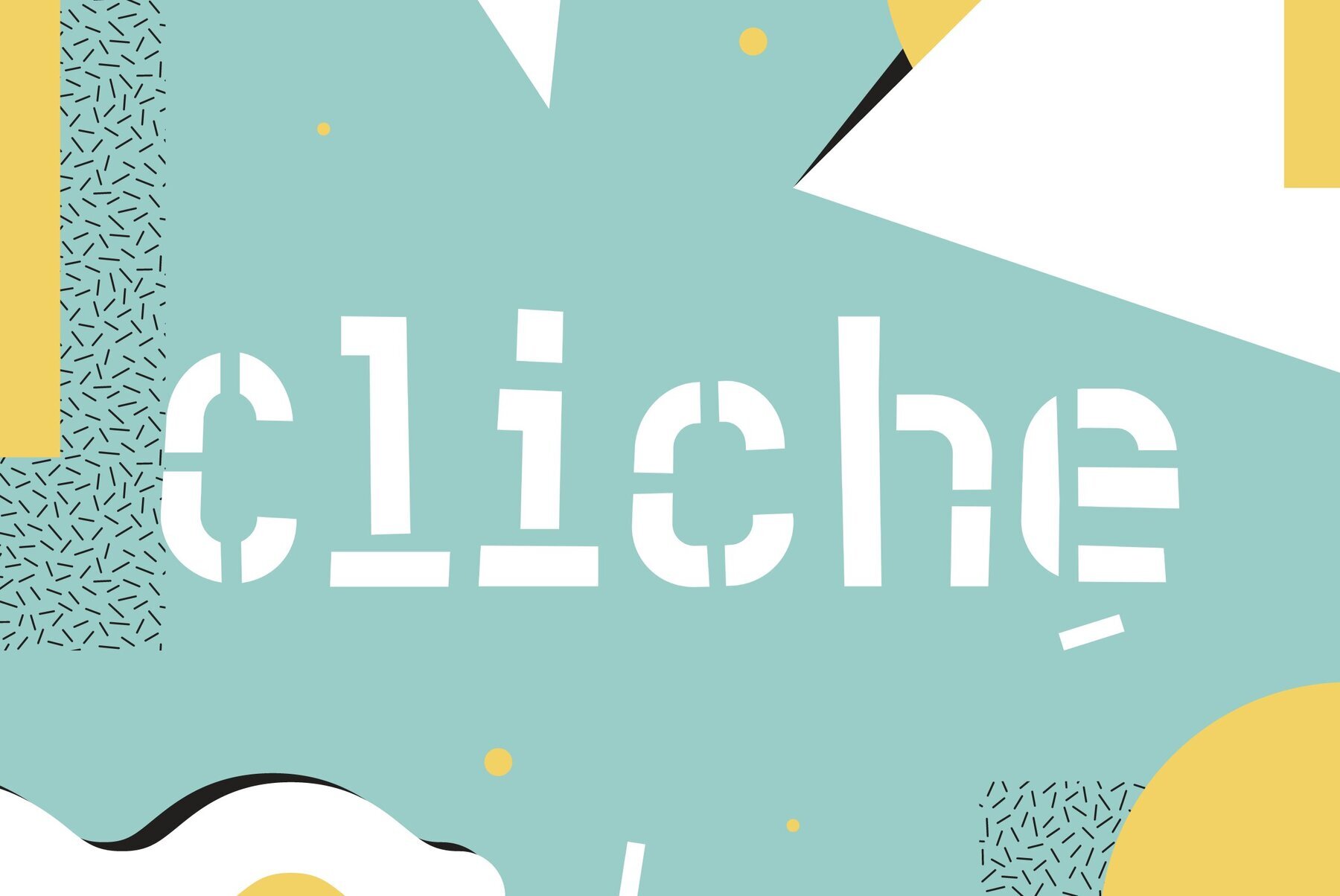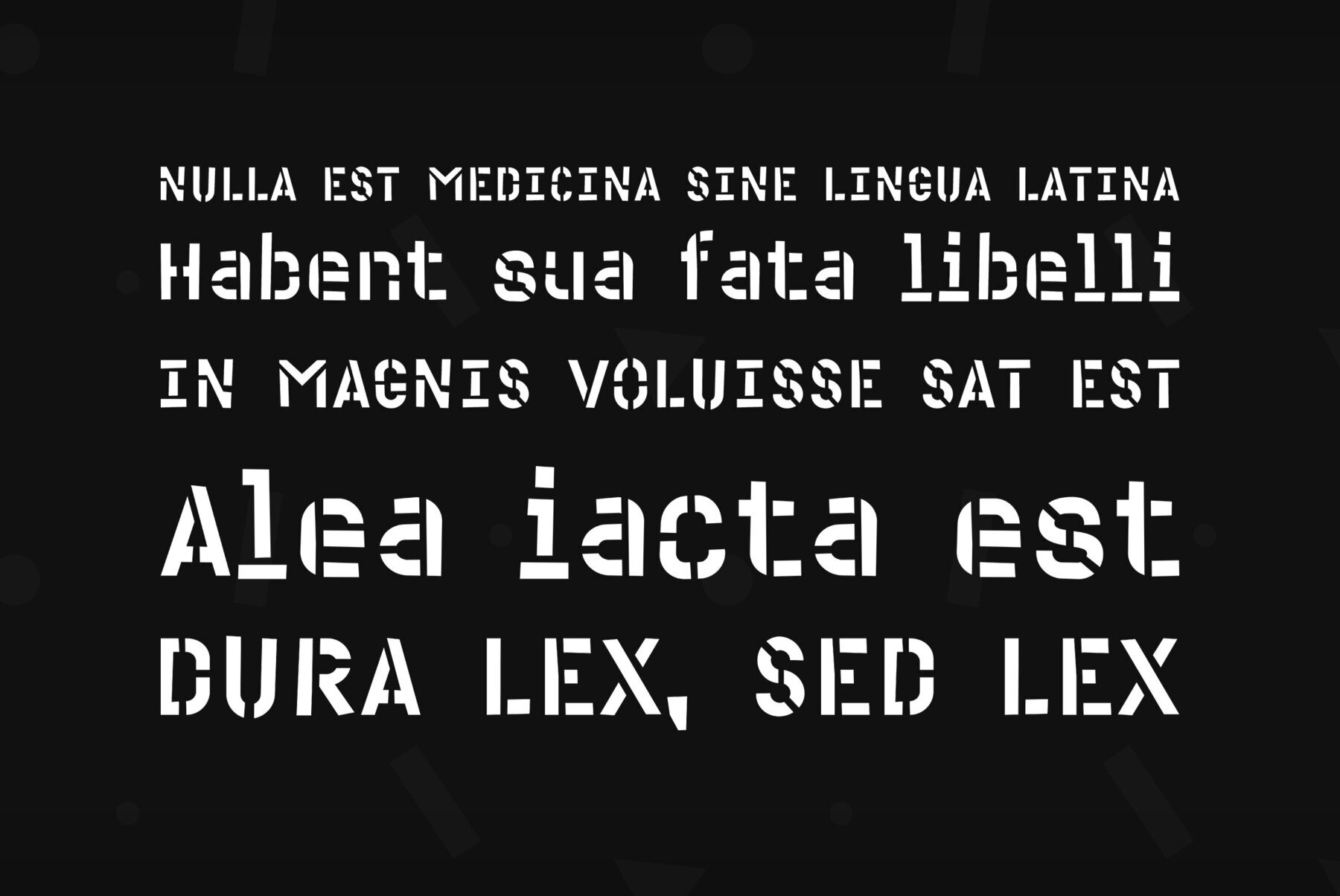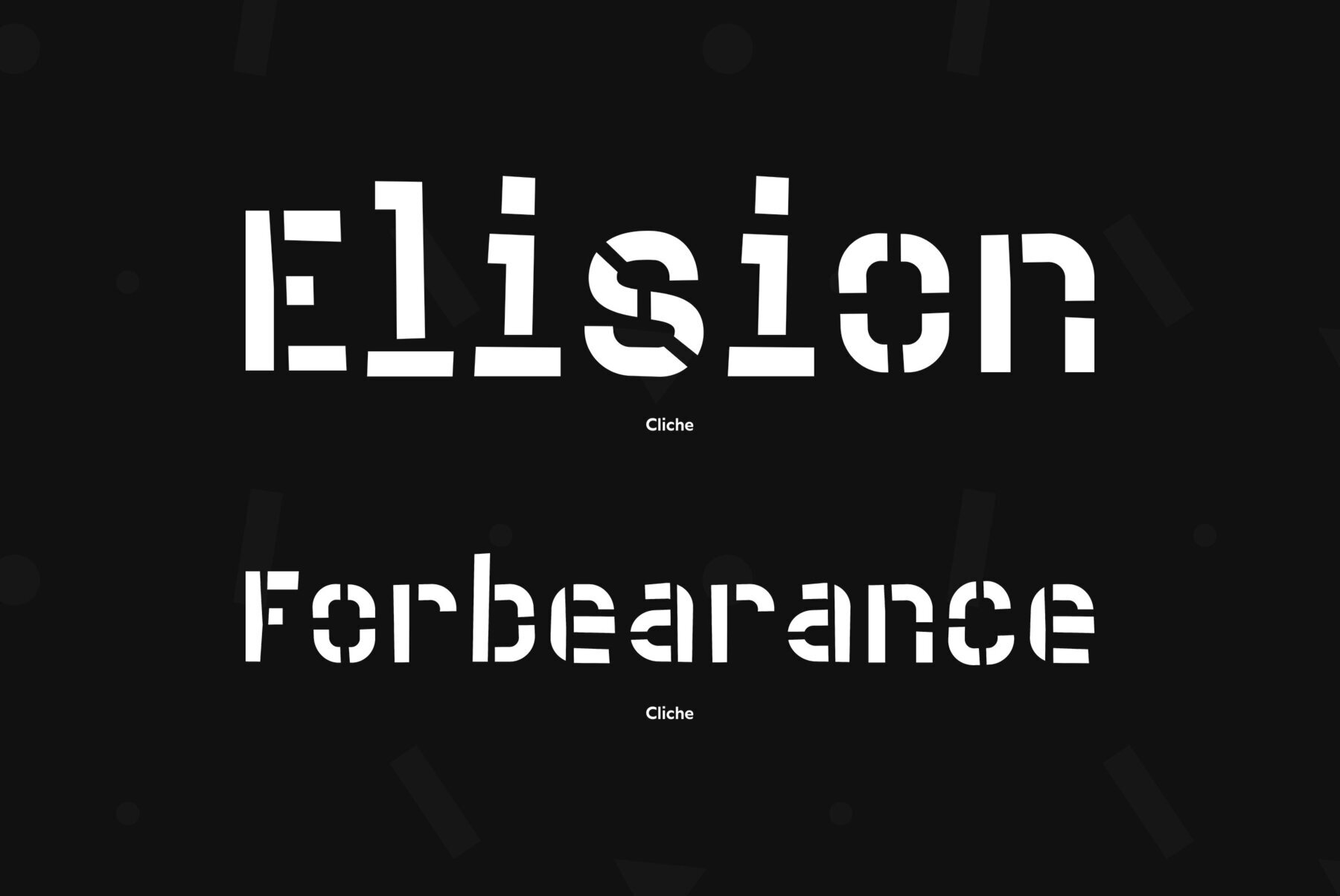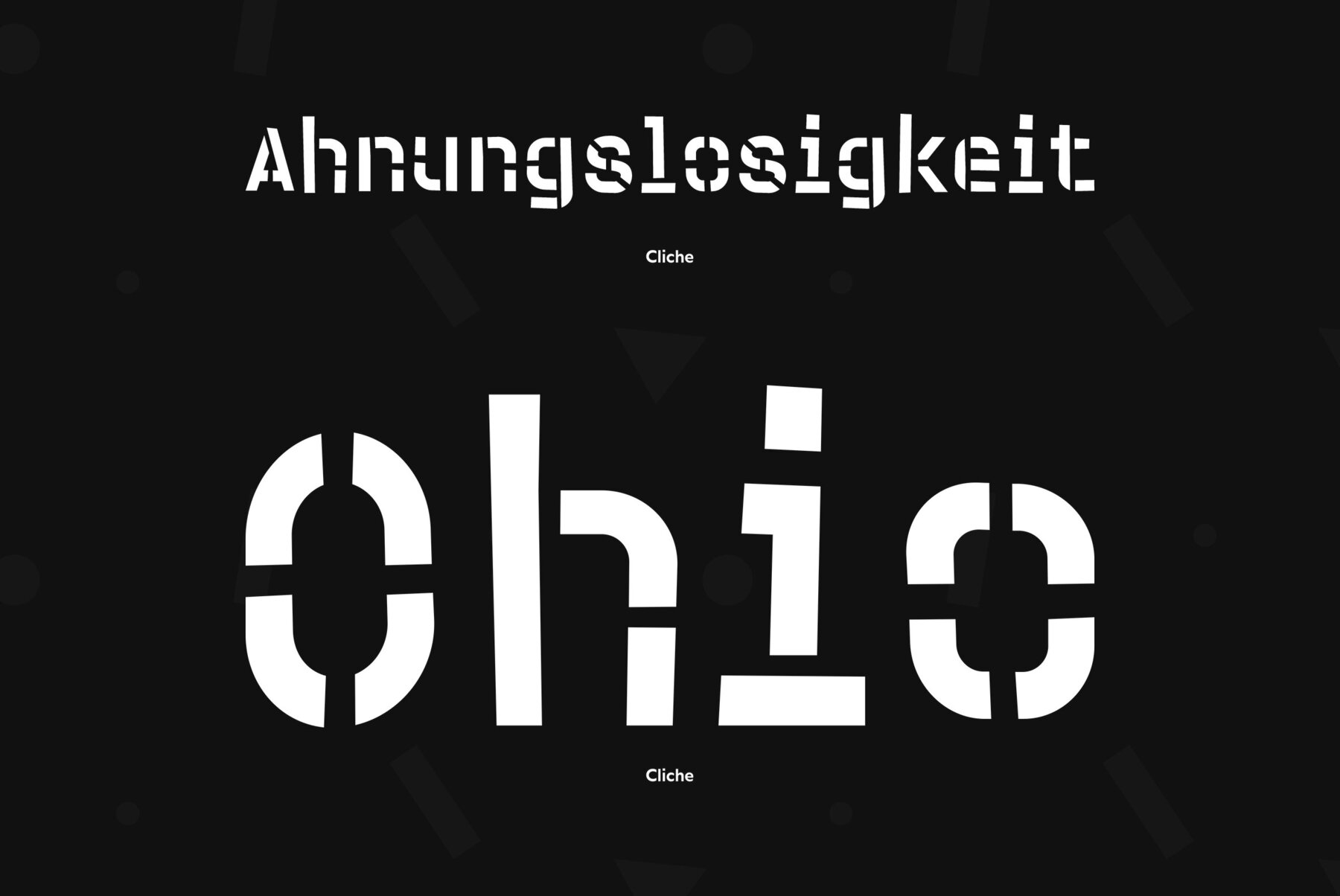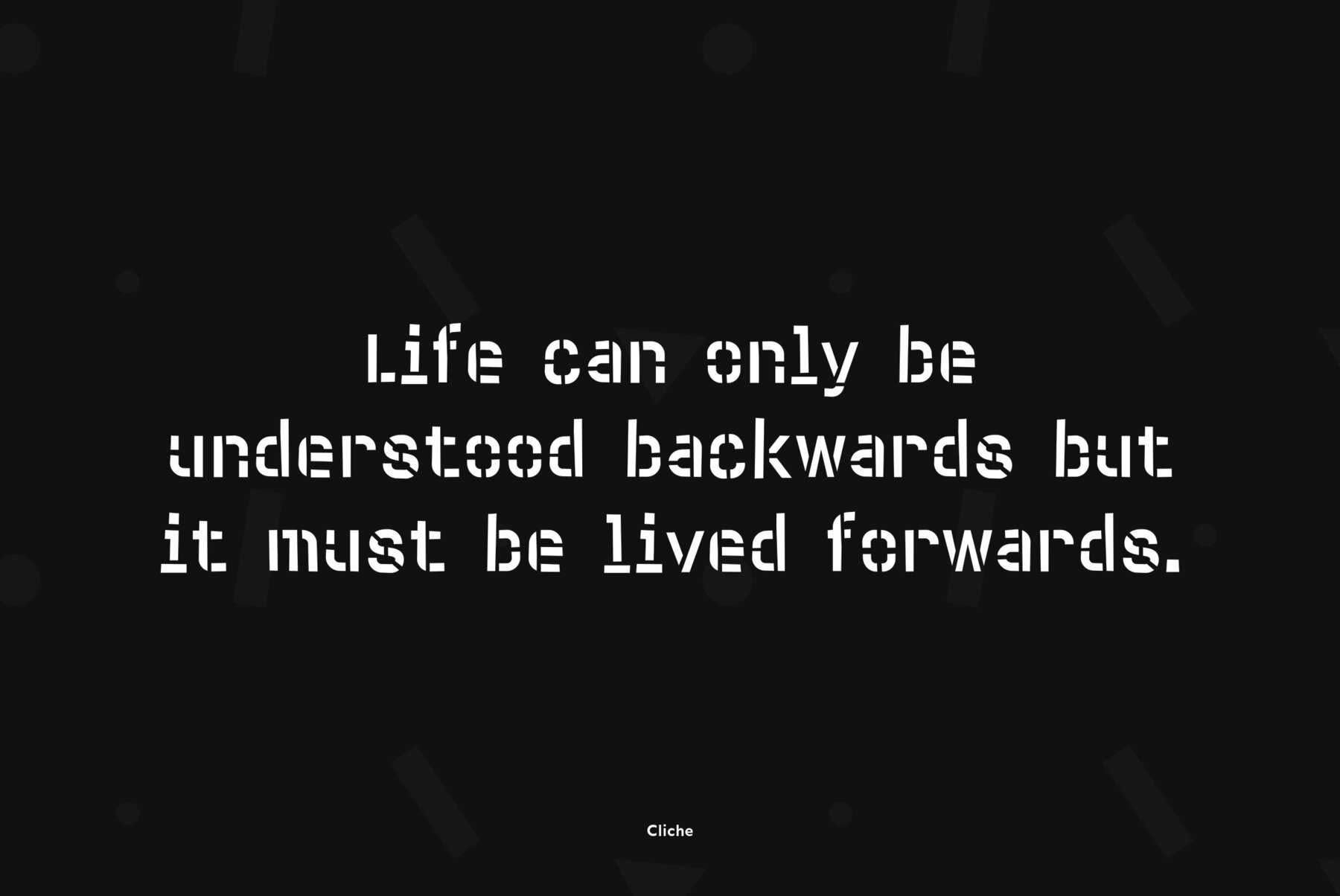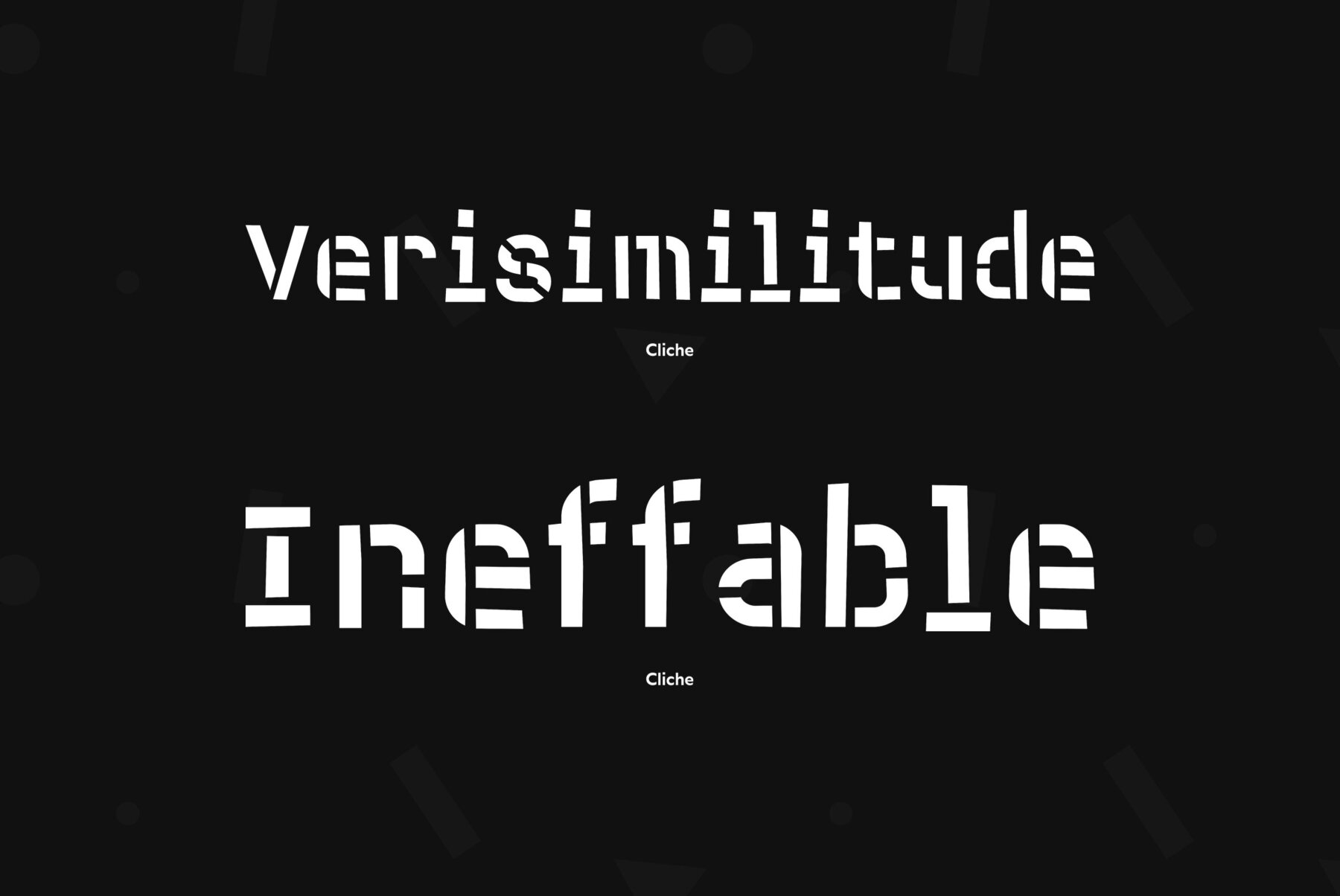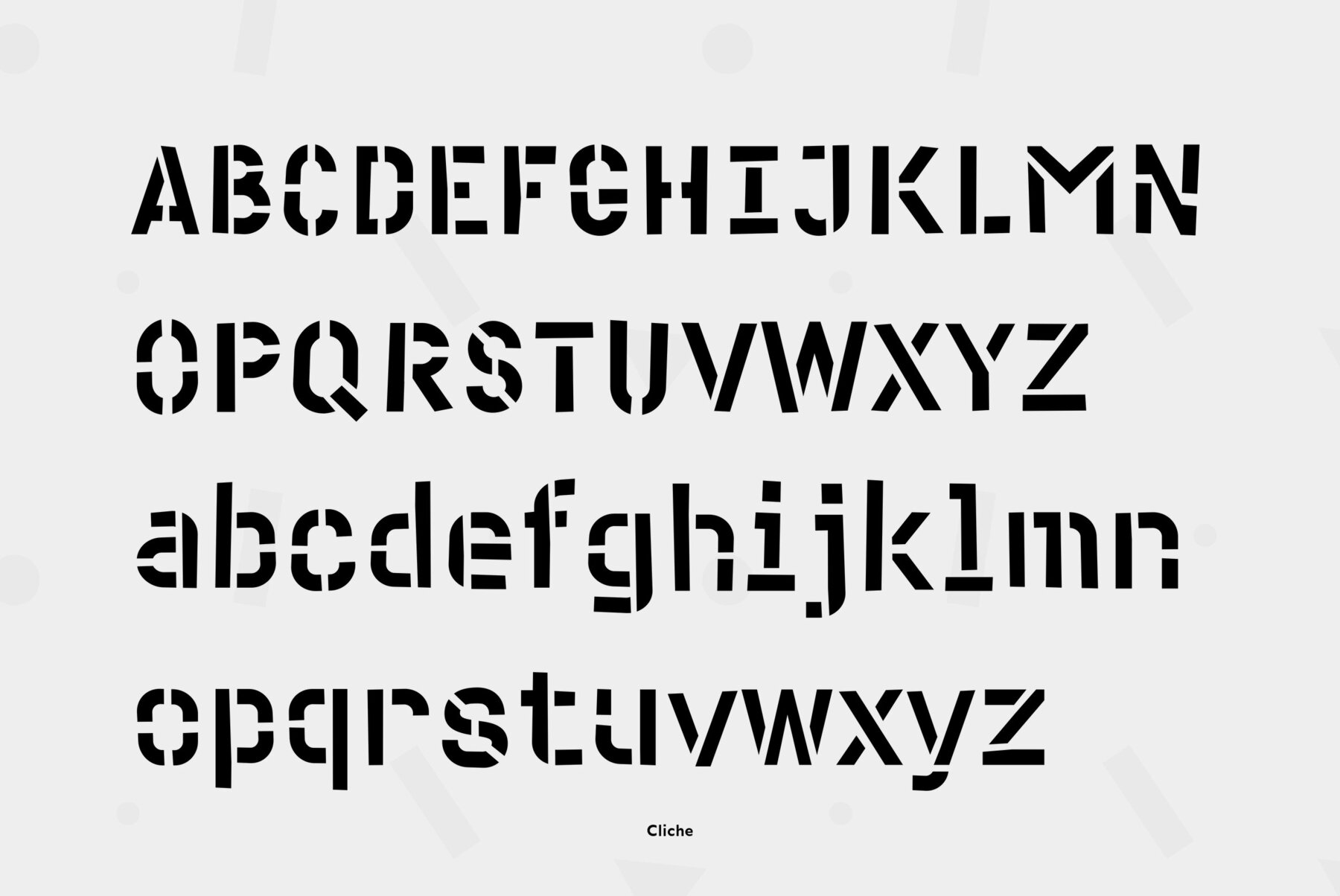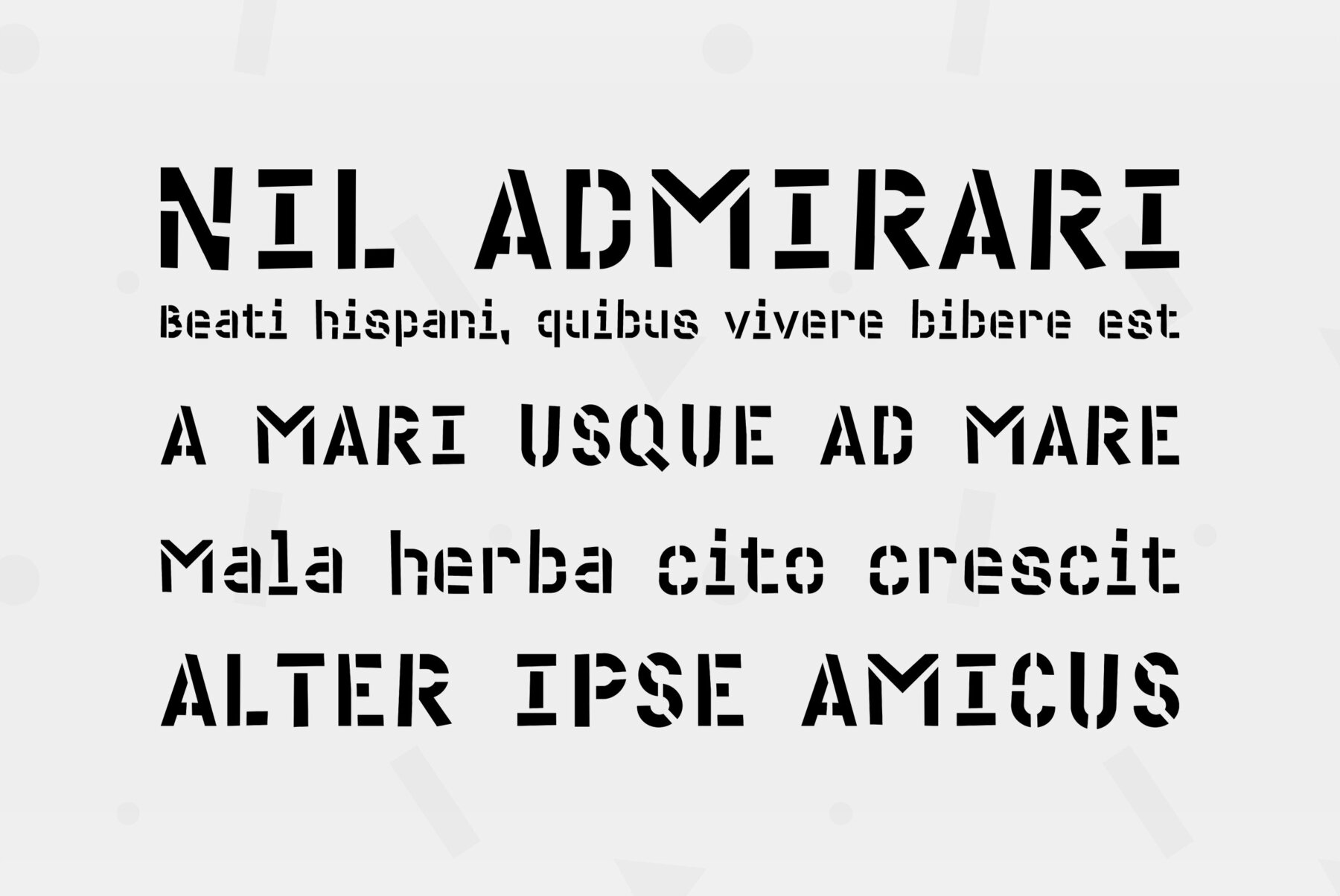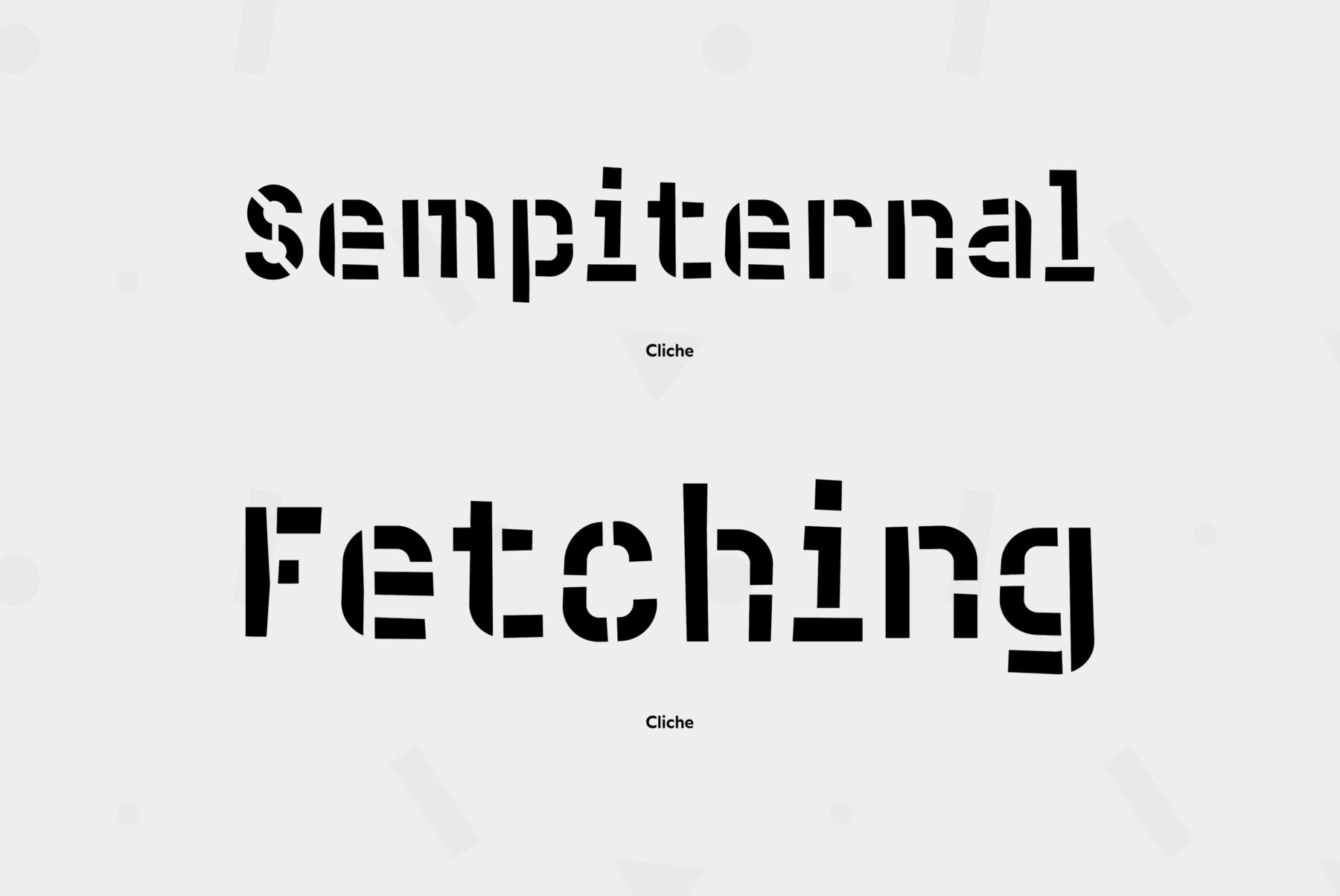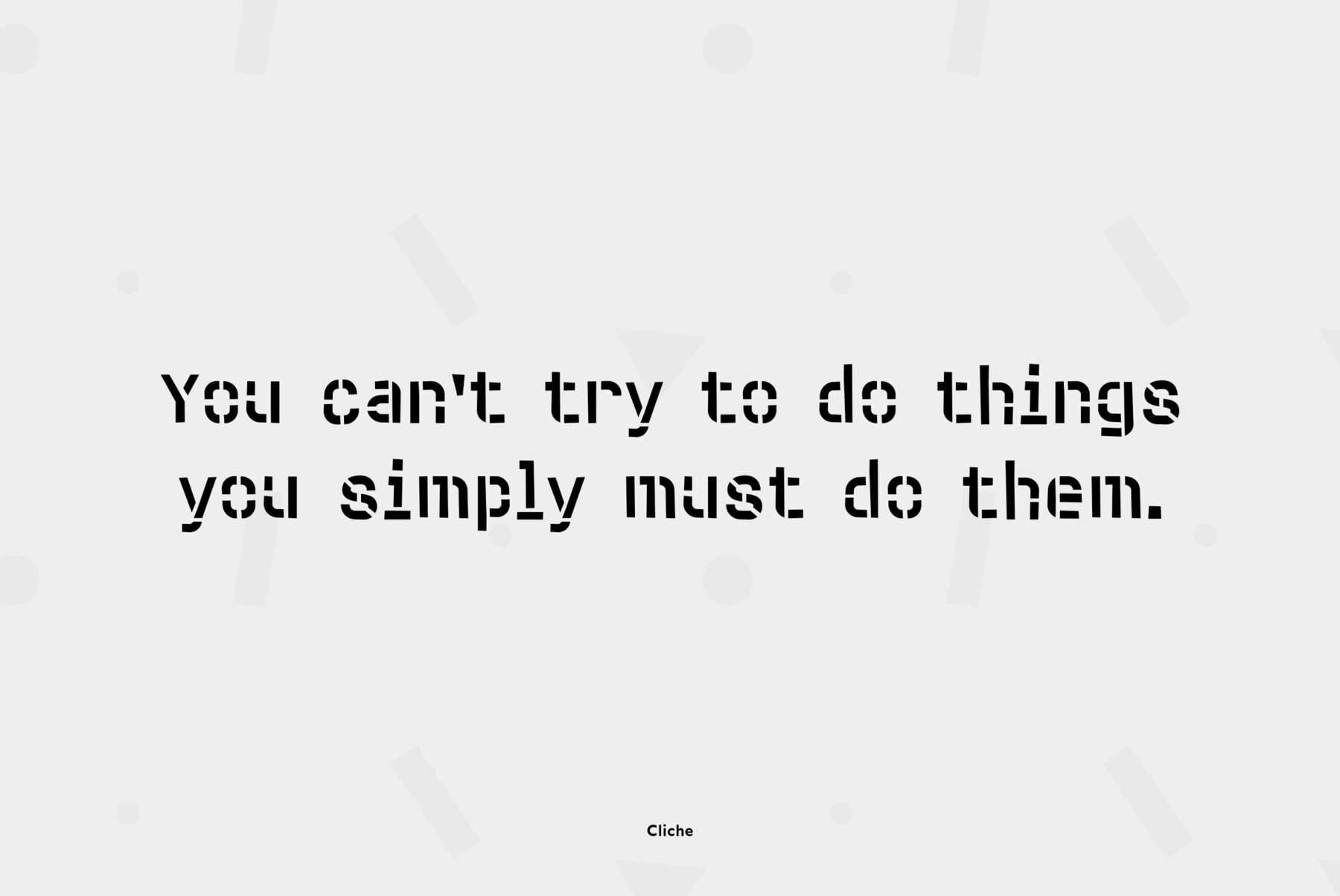
A stencil typeface designed by Andrey Belonogov. Some discrepancy of uppercase and lowercase letterforms seems to be occasional which is typical for hand-made stencil advertisements. For use in display typography. Released by ParaType in 2008....
A stencil typeface designed by Andrey Belonogov. Some discrepancy of uppercase and lowercase letterforms seems to be occasional which is typical for hand-made stencil advertisements. For use in display typography. Released by ParaType in 2008.